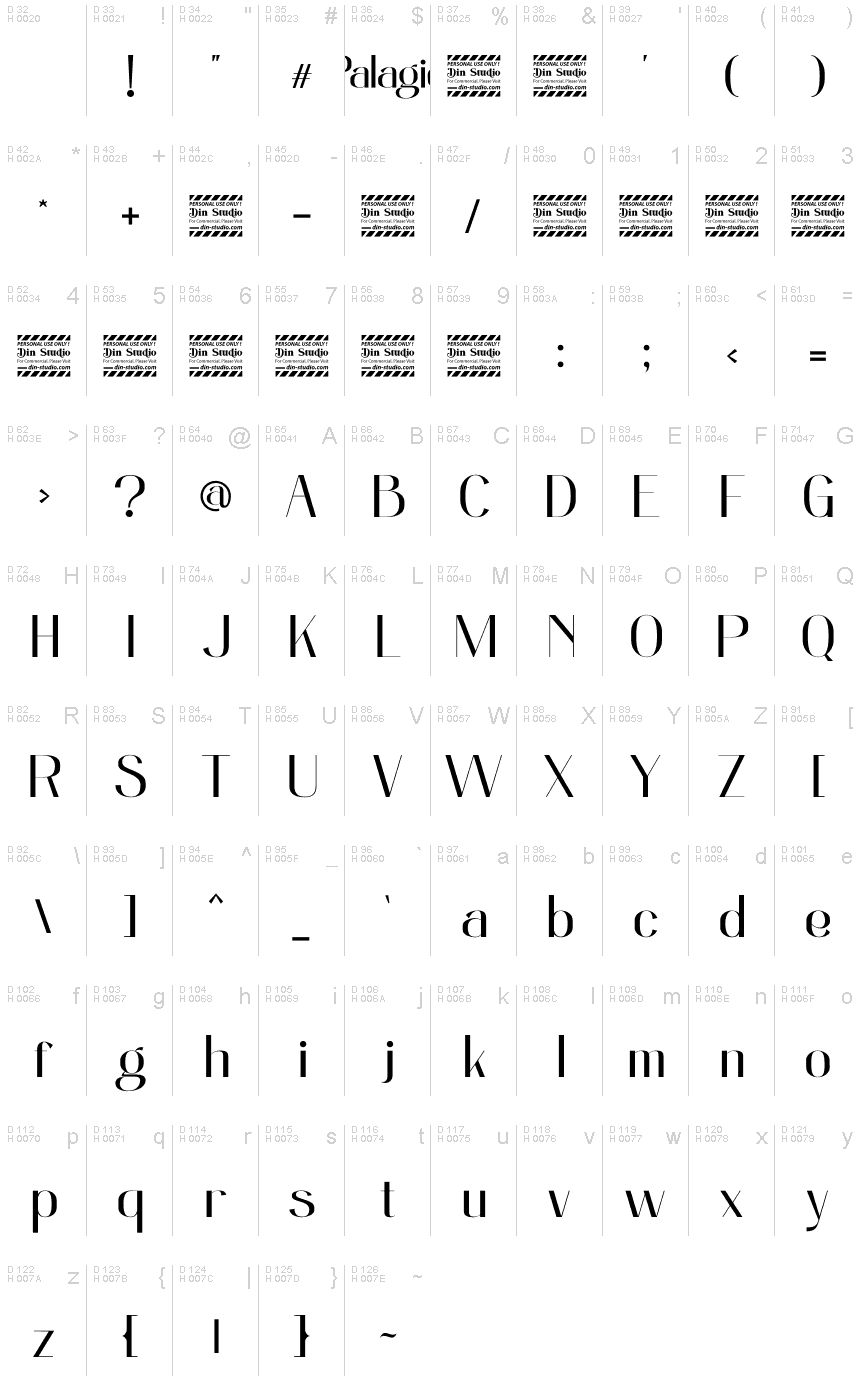
Palagio Personal Use
Palagio, designed by Din Studio, is an elegant sans serif font that exudes sophistication and modernity. With its semi-light weight, it strikes the perfect balance between subtlety and impact, making it ideal for a wide range of creative projects.
This versatile typeface is suitable for luxury branding, high-end fashion editorials, minimalistic websites, elegant wedding invitations, and refined corporate materials. Palagio's clean lines and graceful curves add a touch of class to any design while maintaining readability and legibility.